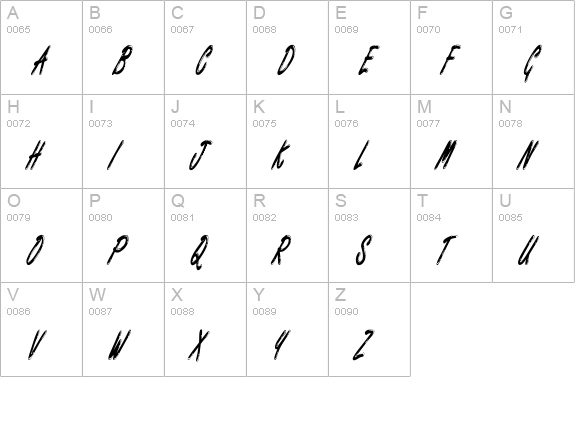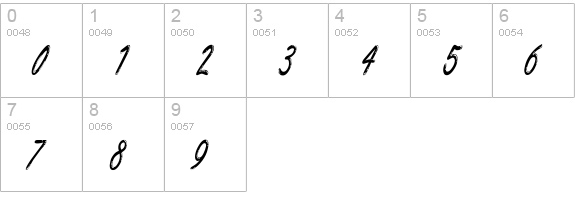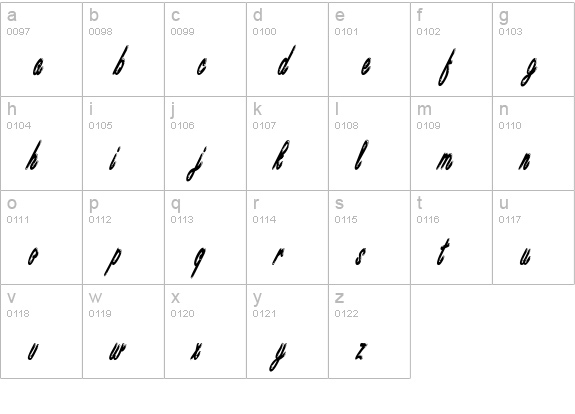
Encino Xtra Condensed Italic is a distinctive, condensed-width, italic variant in the Encino typeface family \xE2\x80\x94 well suited to design and typography projects.
Encino Xtra Condensed Italic font is a sleek and modern typeface that exudes sophistication and elegance. With its slender letterforms and stylish italicized design, this font is perfect for adding a touch of flair to any project. The condensed nature of the font allows for more text to fit in a limited space without sacrificing readability. What's even better is that Encino Xtra Condensed Italic font is available for free download at FontsMarket.com. Whether you're working on a branding project, website design, or any other creative endeavor, this font will elevate your work and make a lasting impression. Don't miss out on the opportunity to enhance your designs with this exquisite typeface, download it for free today!